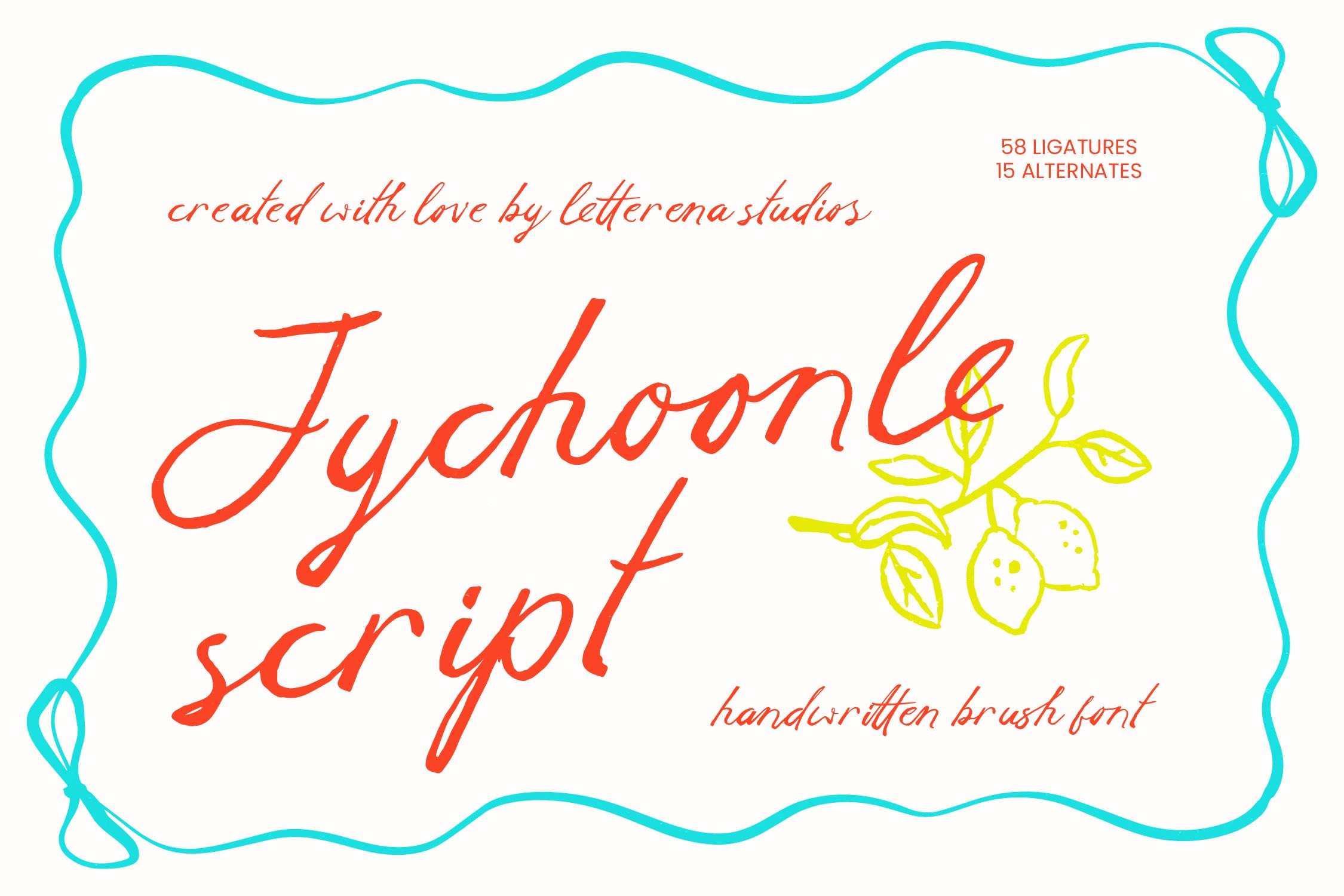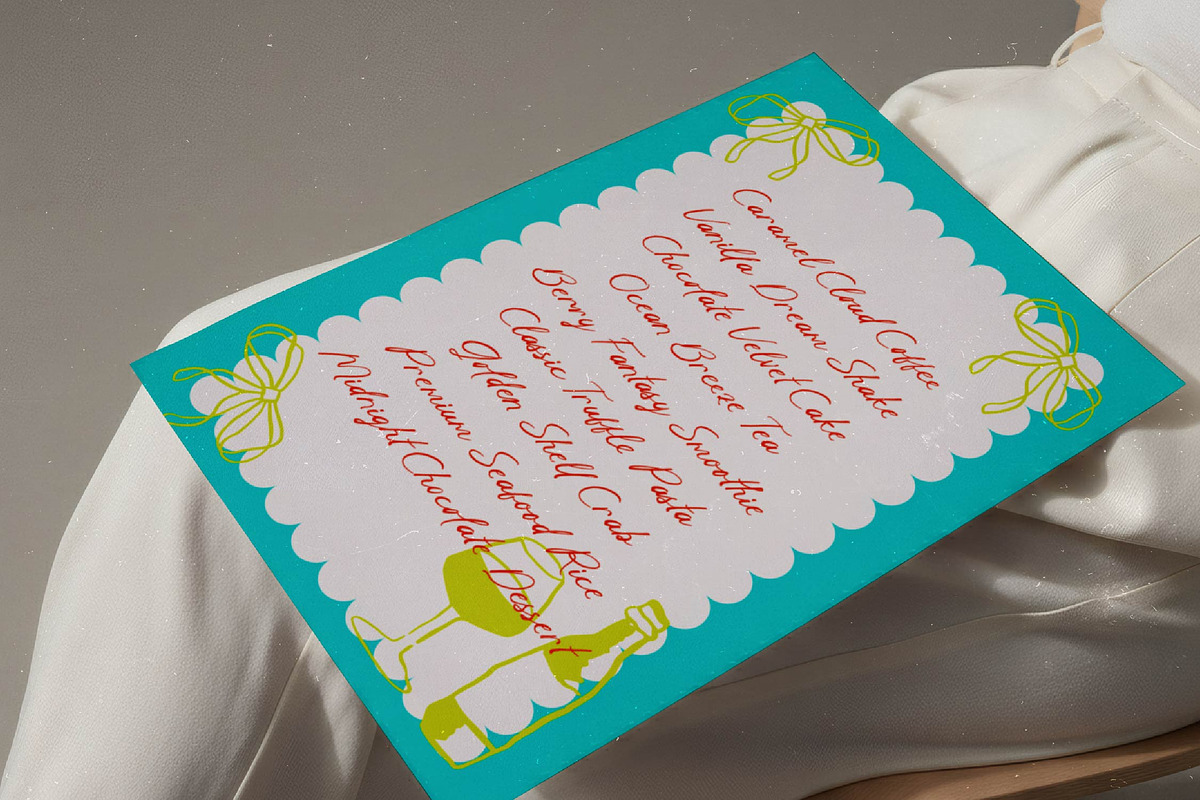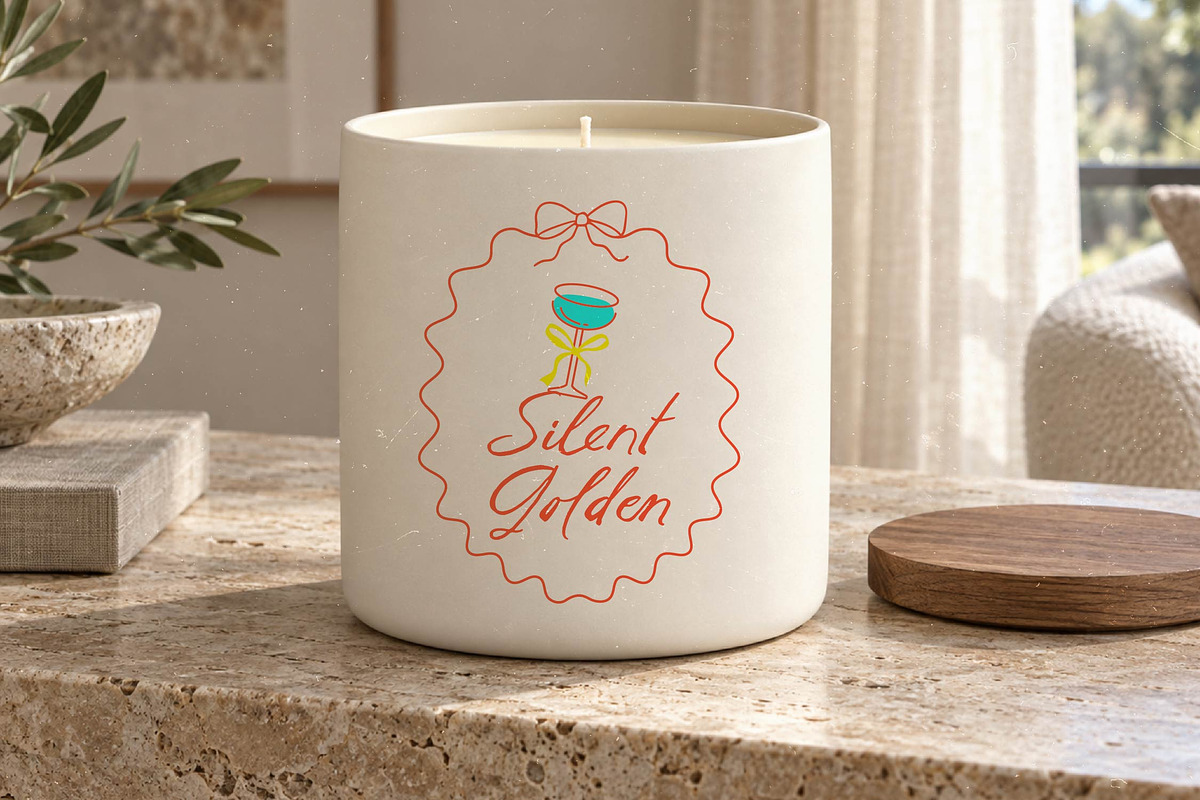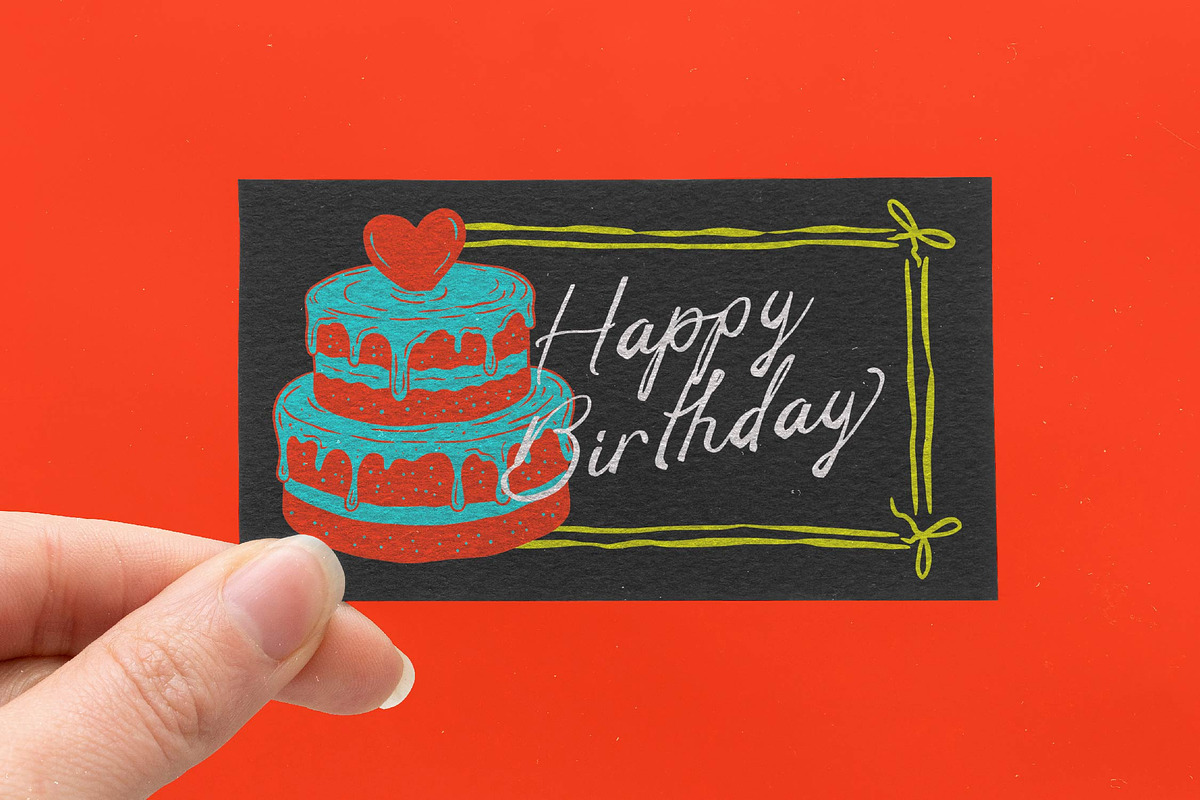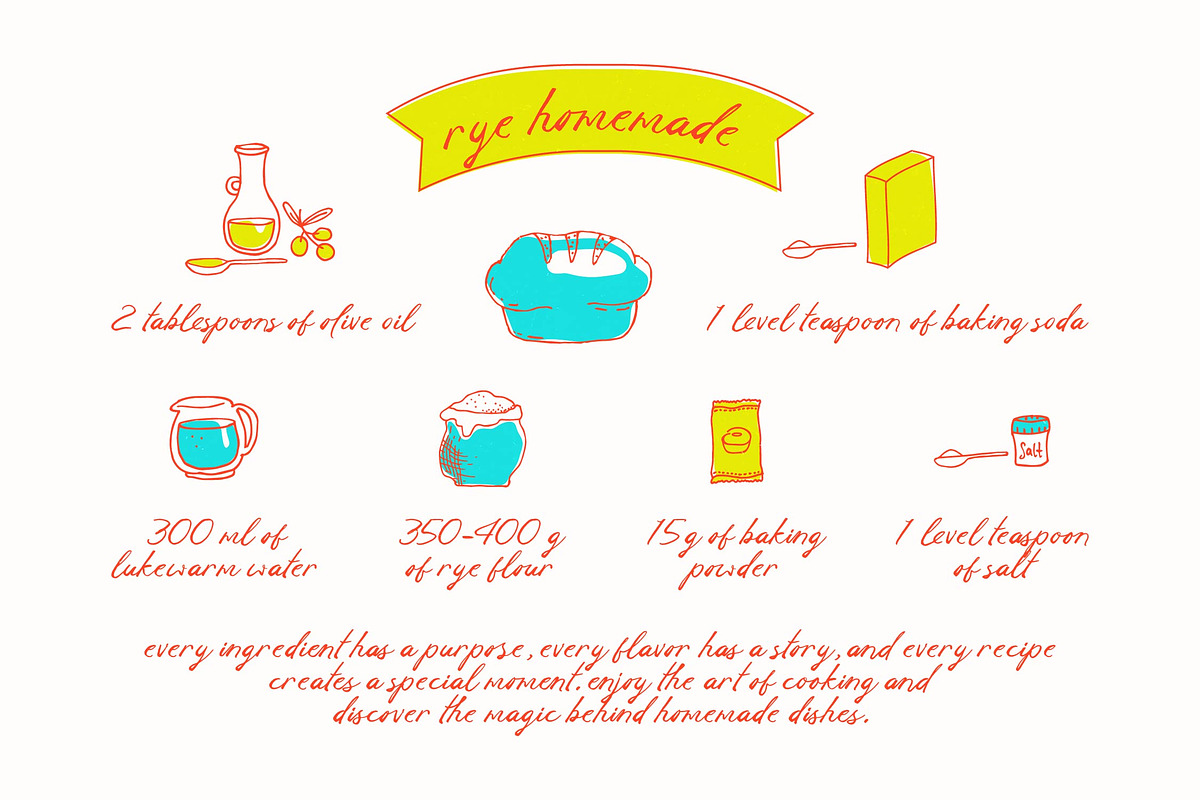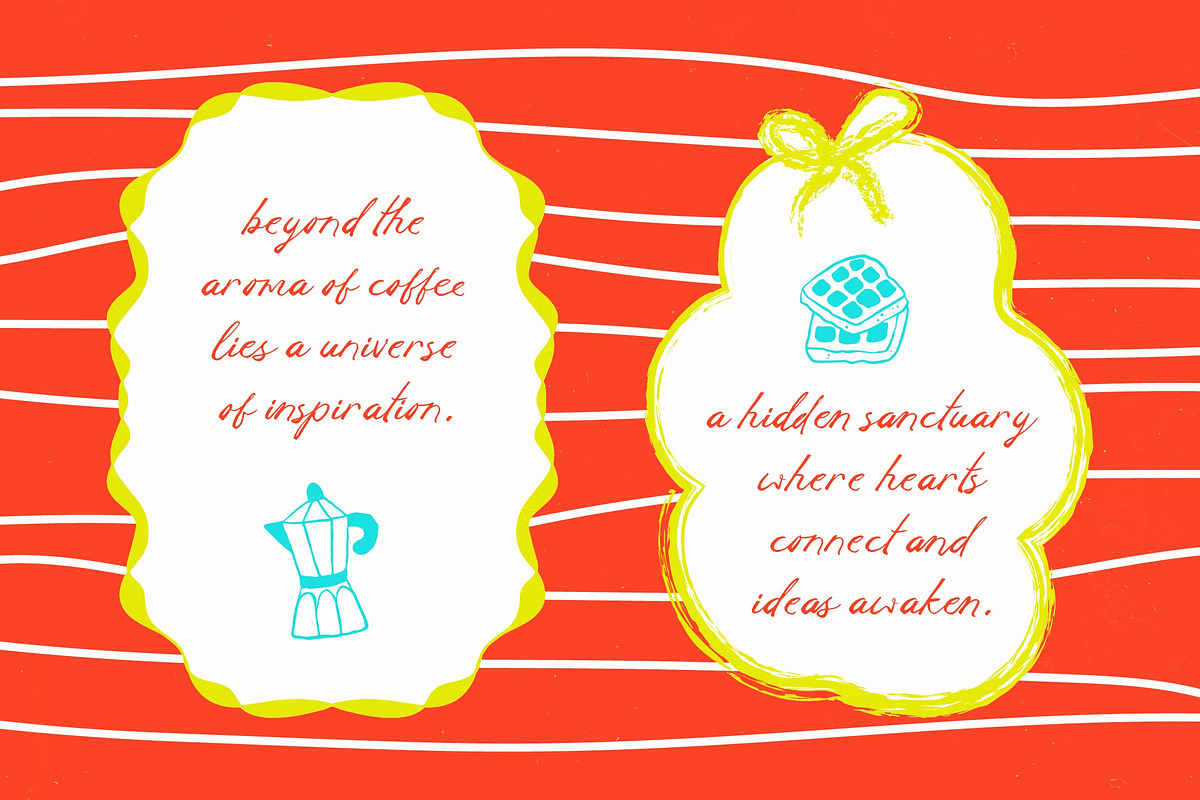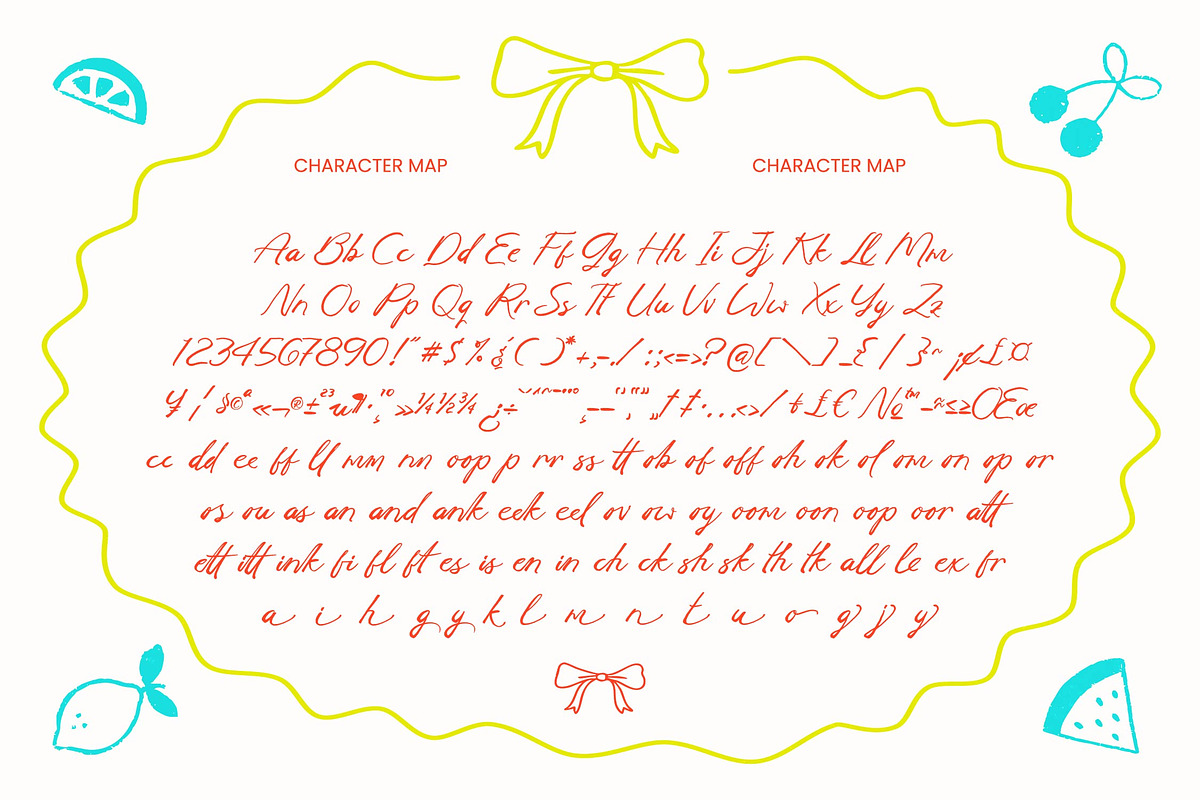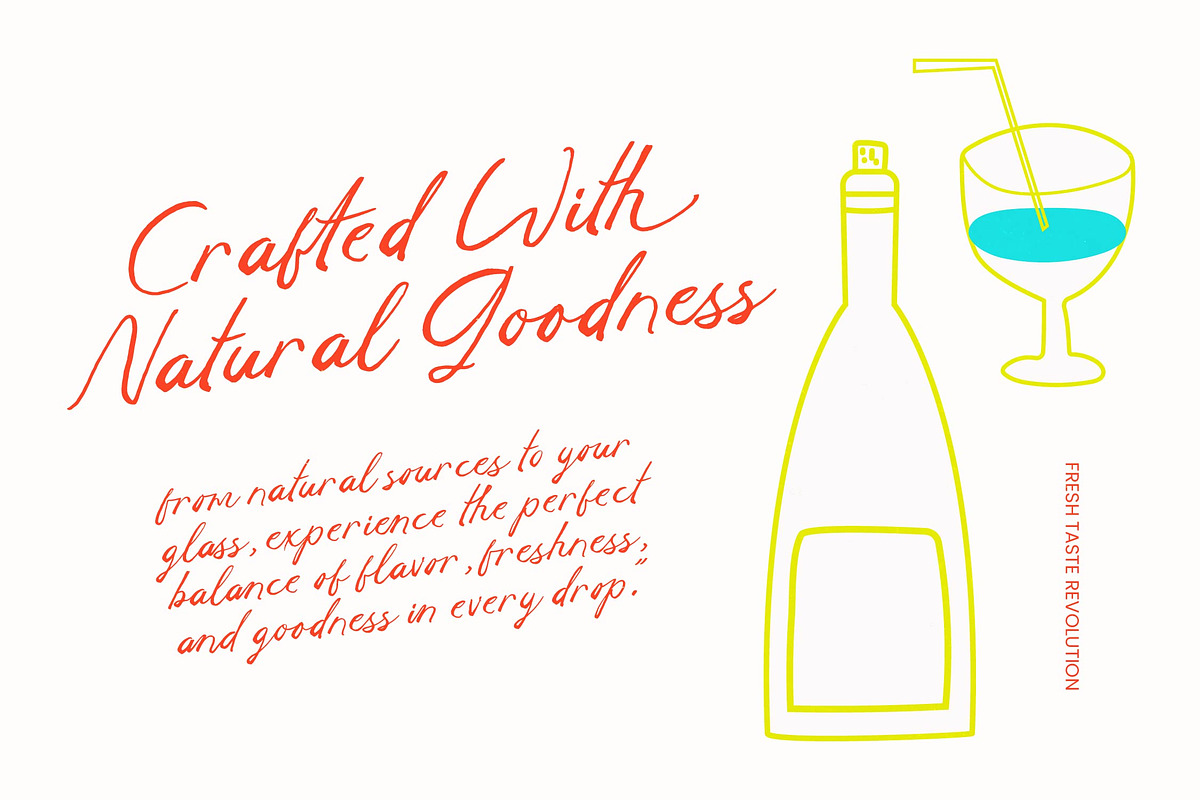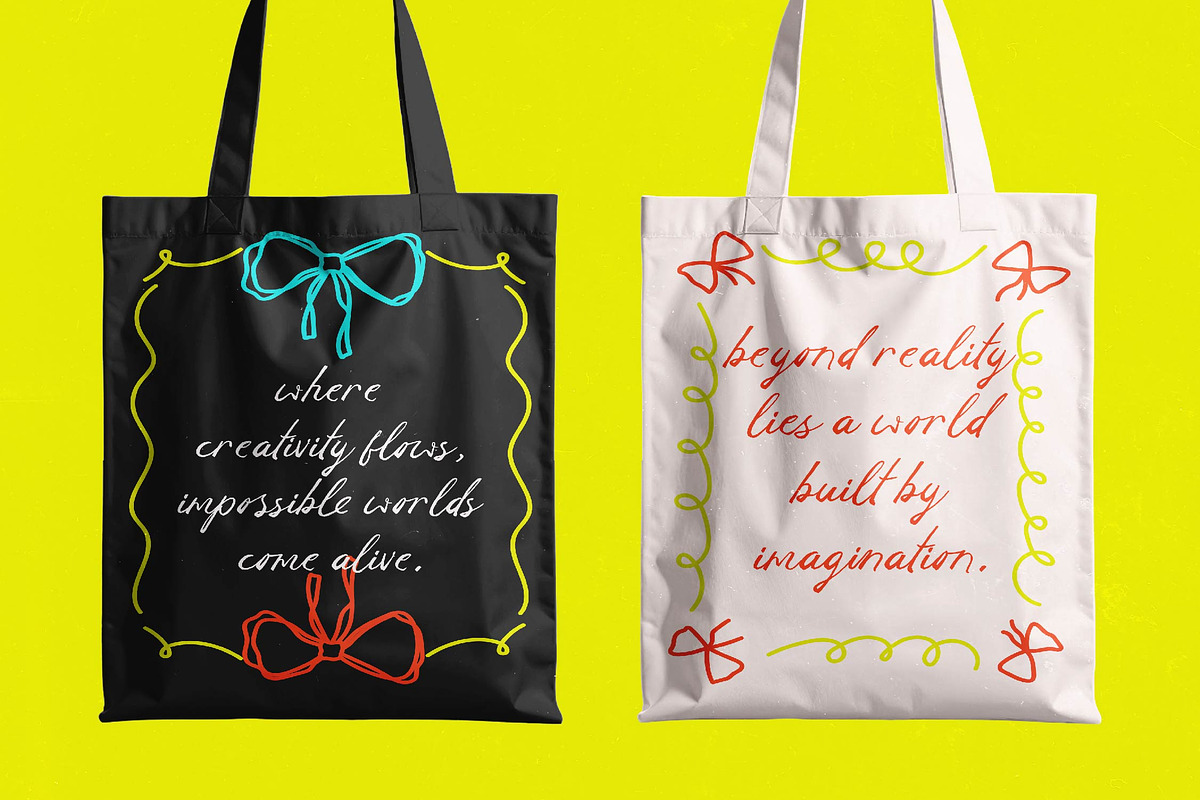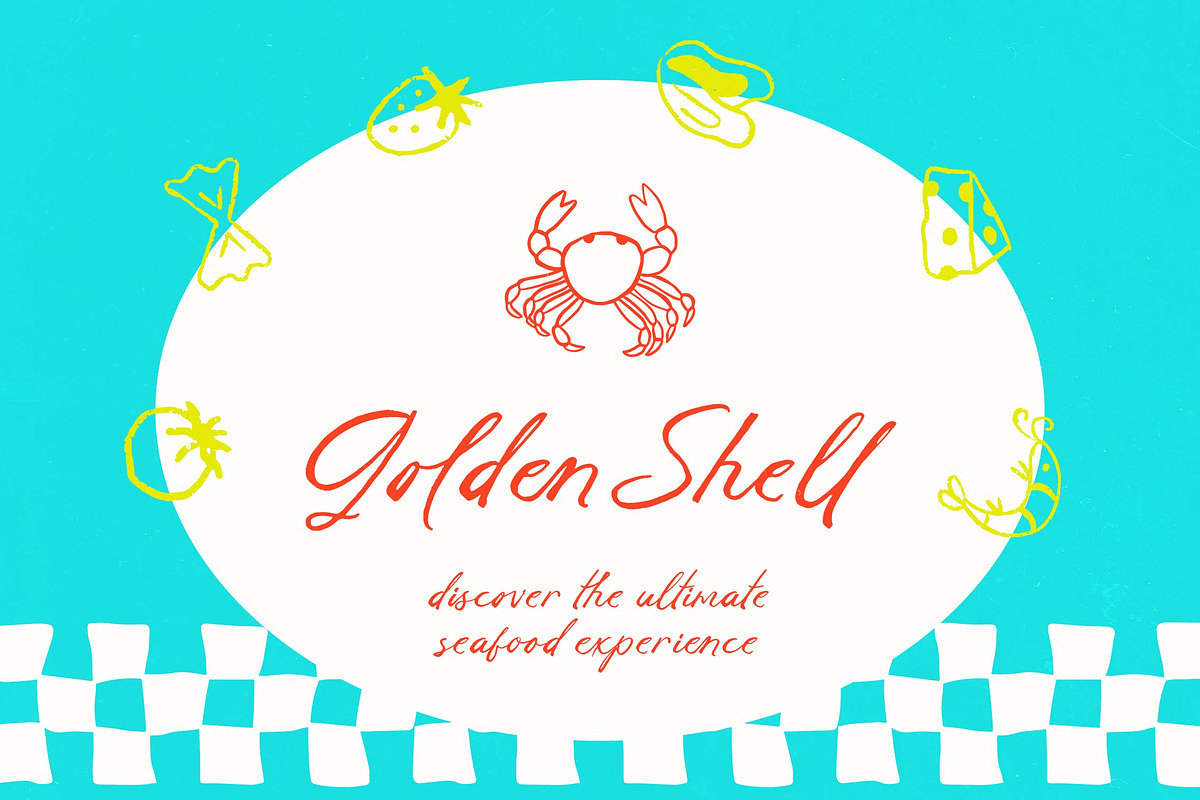
Jychoonle Handwritten Brush Font
Jychoonle - Handwritten Brush Font , Elevate your creative vision with a typeface that embodies raw artistic energy and sophisticated flair. Jychoonle - Handwritten Brush Font is a premium script designed to bring a sense of hand-crafted authenticity to your digital canvas. With its dynamic brush strokes and natural rhythm, this font captures the essence of modern calligraphy while maintaining a clean, professional edge that resonates with contemporary audiences and high-end consumers.
Experience unparalleled design flexibility through a comprehensive set of typographic features that allow for total creative control. This collection includes 58 ligatures and 15 alternates, ensuring that every word feels unique and intentionally composed. With its extensive multilingual support, Jychoonle - Handwritten Brush Font adapts seamlessly across global markets, making it incredibly versatile for international projects and multi-regional marketing campaigns.
Transform ordinary concepts into extraordinary visual narratives across a wide array of luxury industries. Jychoonle - Handwritten Brush Font is perfect for luxury branding, artisan packaging, and bespoke editorial design where personality is paramount. It is also an ideal choice for wedding invitations, boutique identity, and lifestyle social media graphics, providing an organic aesthetic that builds an immediate emotional connection.
Capture the essence of artisanal craftsmanship and give your brand the professional edge it deserves. The expressive nature of Jychoonle - Handwritten Brush Font ensures that your message is not just read, but felt by your target audience. Whether you are developing a global product launch or a signature logo, this font delivers a bold visual impact that stands out, making it an essential asset for any modern designer.